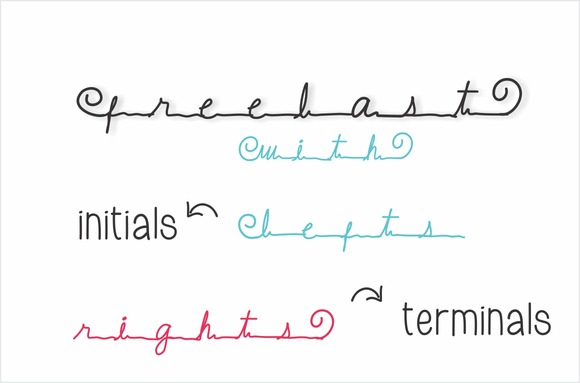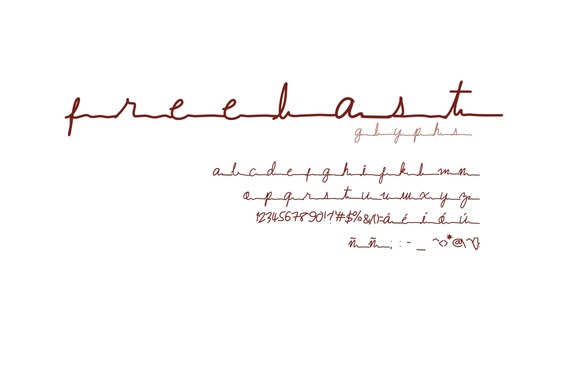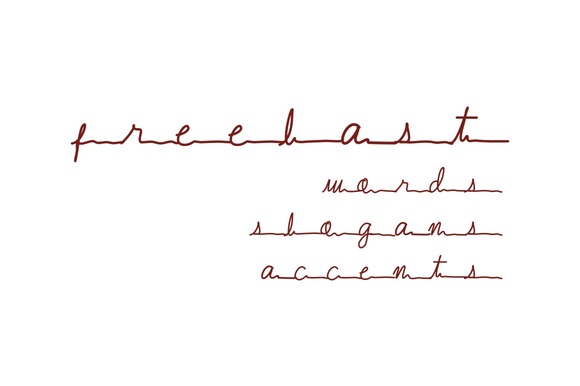
Introduction to Freelast Font
Imagine you’re working on a creative project and you’re struggling to find the perfect font that captures the essence of your vision. You’ve searched high and low, scrolled through countless designs, and still, nothing seems to fit. That’s where the Freelast Font comes in – a stunning, elegant typeface that’s sure to elevate your design to the next level.
With its unique, lowercase-only design, Freelast Font offers endless possibilities for creative expression. Whether you’re designing a logo, creating a t-shirt design, or crafting a beautiful invitation, this versatile font is the perfect addition to your design resource arsenal.
Key Features of Freelast Font
Honest Review: Freelast Font
I recently stumbled upon the Freelast Font while searching for a free download to use in a creative project. I was immediately drawn to its sleek and modern design.
- ✨ The high quality of the font is evident in its crisp lines and smooth curves.
- ✨ The transparent background makes it easy to use with various backgrounds and designs.
- ✨ The font is highly versatile and can be used for a wide range of creative projects.
- ⚠️ The font may not be suitable for all design projects, particularly those requiring a more conservative or traditional look.
- ⚠️ Some users may find the font to be a bit too bold or eye-catching, which may not be ideal for all design applications.
Overall, I’m impressed with the Freelast Font. It’s a great addition to any design resource library and can add a touch of modernity to any creative project.
The Freelast Font is a versatile font that can be used in a variety of creative projects, including logos, branding, and advertising materials. It’s also a great font to use in presentations, reports, and other business documents.
Alternatives to Freelast Font
Montserrat is a high-quality sans-serif font perfect for creative projects that require a clean and modern design. It’s ideal for titles and headings, especially when used with a transparent background to make your text stand out.
Compared to Freelast Font, Montserrat has a more geometric and urban feel, making it suitable for modern and edgy designs. You can download Montserrat for free from Google Fonts.
Open Sans is a versatile font that works well for a wide range of creative projects, from print to digital media. It’s available for free download and features a clean and minimalist design, making it perfect for body text and captions.
Does the Freelast Font have a transparent background?
Yes, the Freelast Font has a transparent background, making it ideal for designs that require a clean and minimalist aesthetic. This feature allows you to easily combine the font with other design elements, creating a cohesive and visually appealing design.